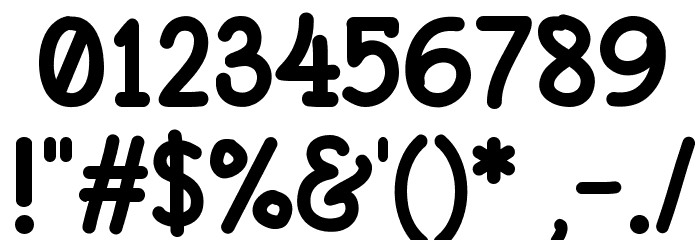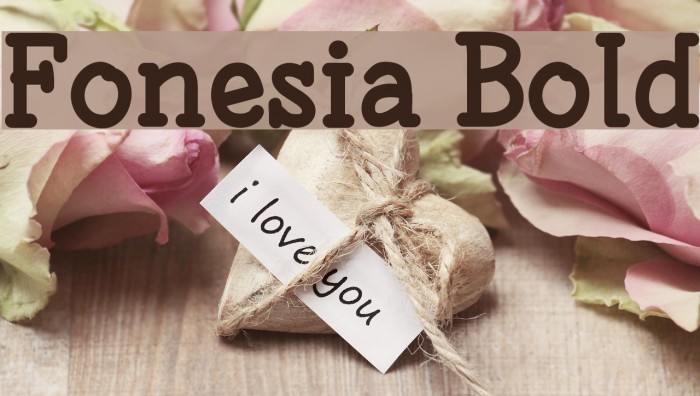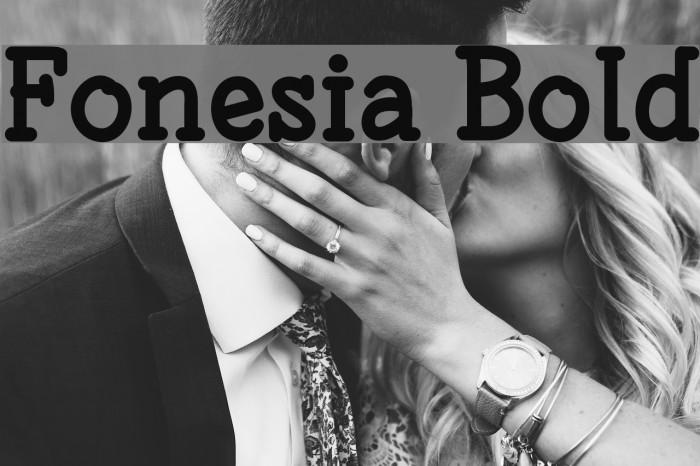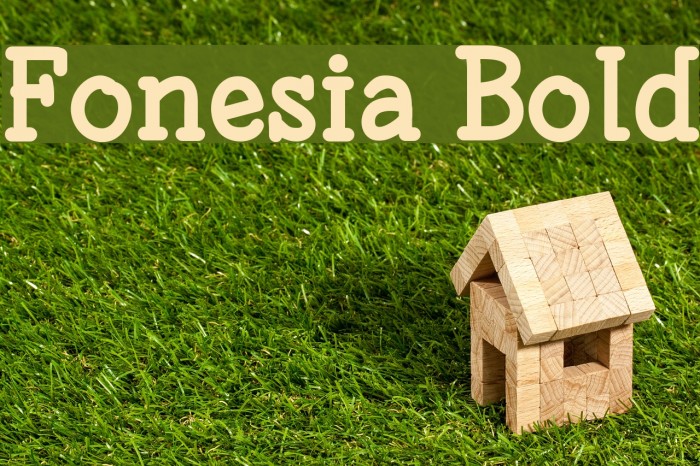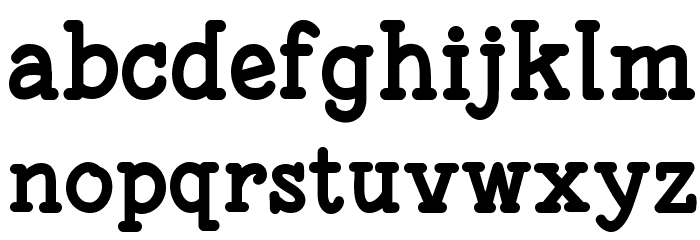
Fonesia Bold Font
This bold slab serif font features thick, rounded serifs and a robust structure, giving it a strong and confident appearance. The uppercase letters are uniform in height, while the lowercase letters maintain a consistent baseline, providing a harmonious look. The numerals are clear and distinct, making them easily readable. Special characters are well-defined, with a playful yet sturdy design. The overall style is modern with a touch of vintage charm, making it versatile for various design needs.
A bold slab serif font with rounded serifs and a robust, modern appearance.
• Proposed Projects: Ideal for branding, headlines, posters, and packaging design where a strong, confident typeface is needed.
• Category: Slab Serif
• Contrast: Medium
• Overall Style: Modern
• Use Case: Headlines, Logos, Posters